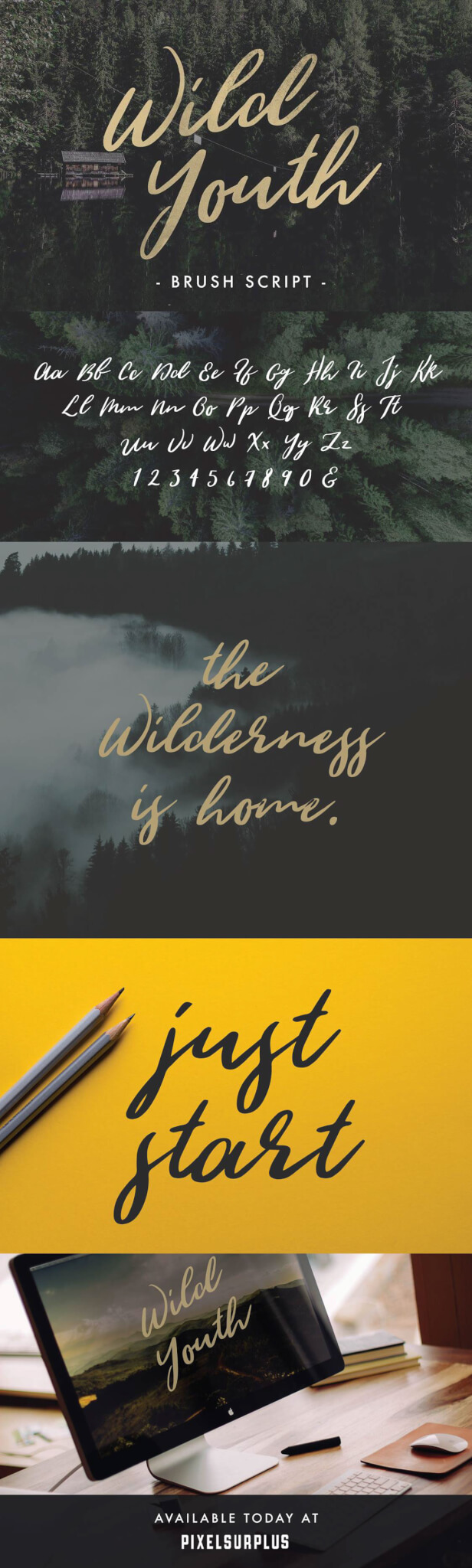
Wild Youth Free font is handwritten brush type. It reflects moods of wild nature which take us to adventure scenarios like the images illustrate. Looks great for posters, flyers, logos and other graphical design projects where nature and freedom feelings stand out. It’s free for personal & commercial use.